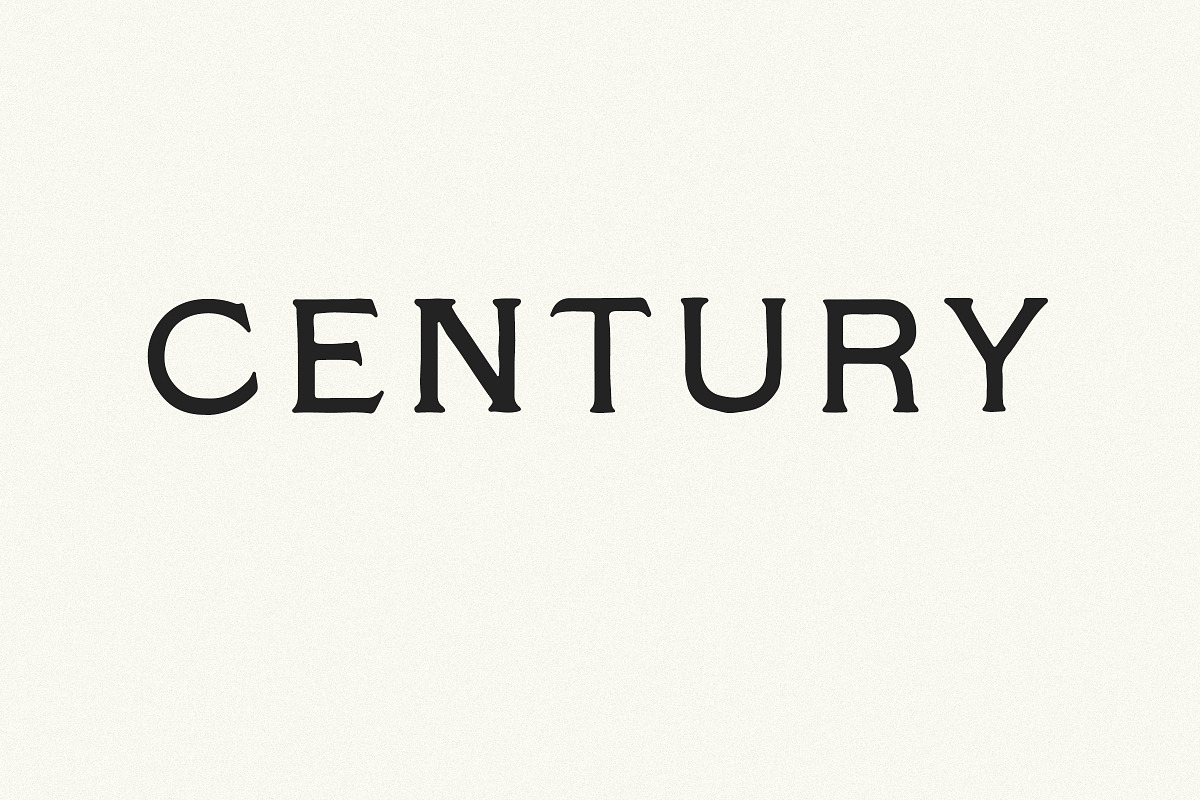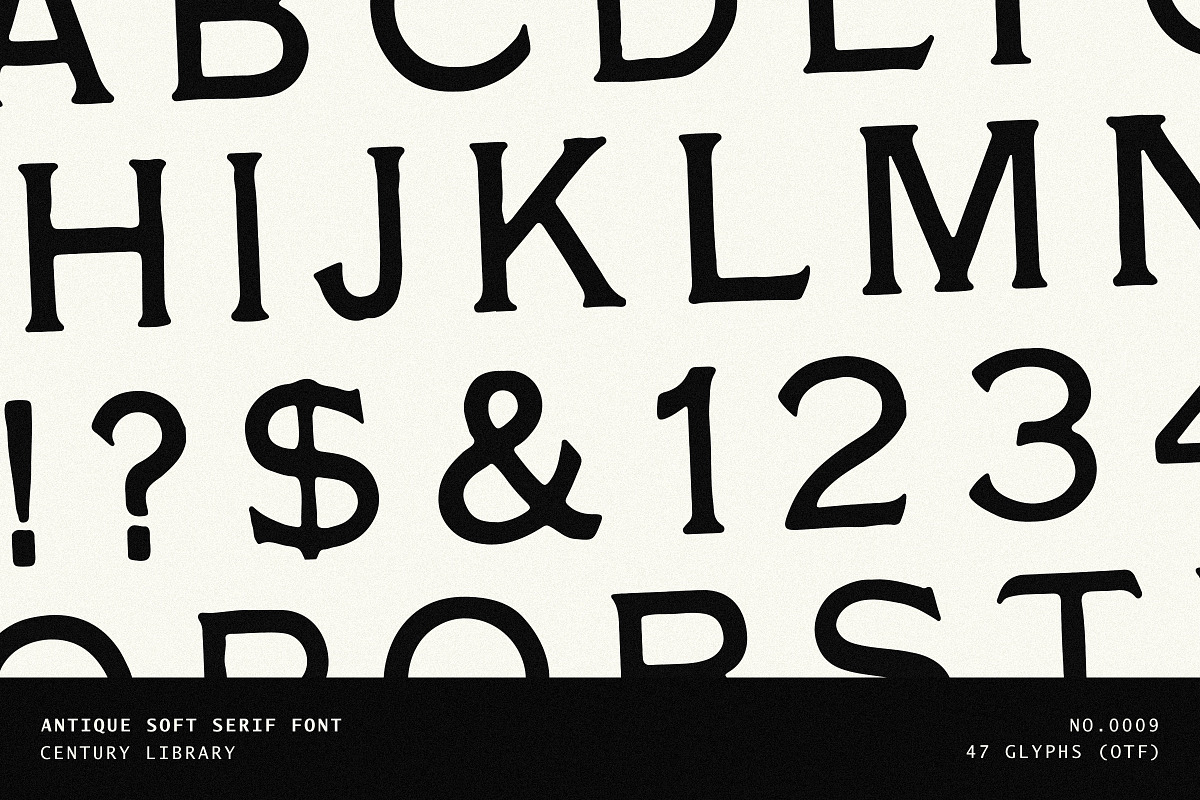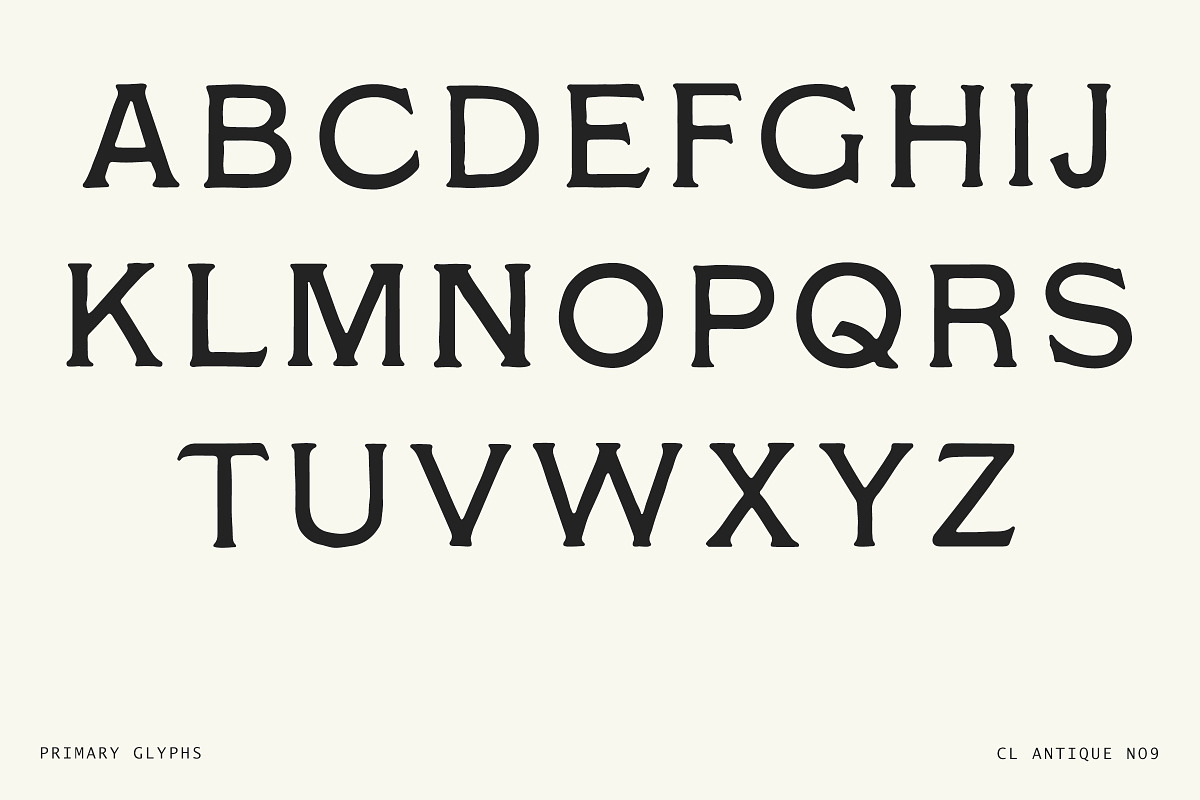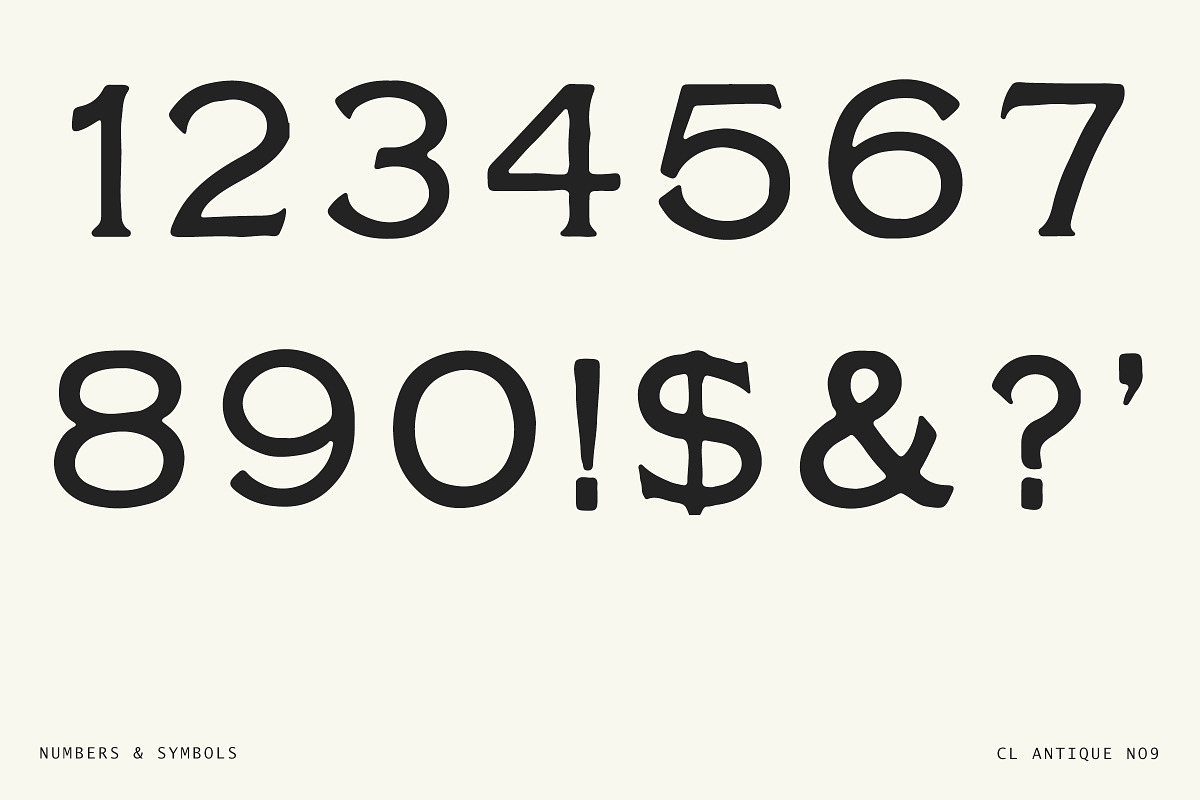
Bold Vintage Serif Font - No.09
Introducing CL Antique No.9 – a bold, soft-edged serif font carefully restored from original 19th-century type specimens.
This characterful font is part of our growing Century Library collection, lovingly revived from antique sources. Every glyph has been meticulously scanned, cleaned up, and transformed into a working font – preserving the hand-made texture, warmth, and imperfections that make early type so unique.
This isn't a modern redesign. It’s a direct, authentic restoration – capturing the slightly uneven lines, chunky serifs, and friendly character of old-world print. The font includes A–Z letters, numbers, and a few essential punctuation marks from the original source material.
Perfect for posters, logos, packaging, branding projects, or anything that calls for a vintage but approachable look.